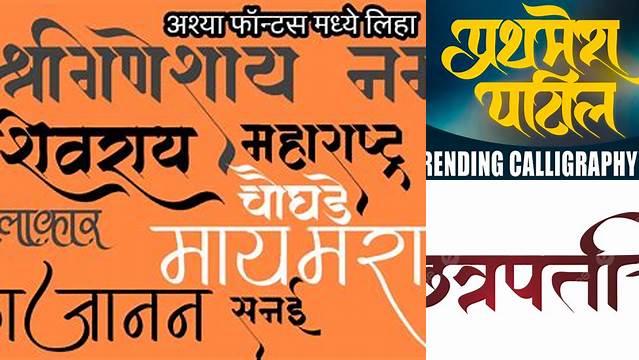
Marathi Fonts Net Shivaji: A Comprehensive Guide
Marathi Fonts Net Shivaji has become a significant keyword for those delving into the realm of Marathi calligraphy and typography. Guys, whether you are a seasoned designer, a student exploring different scripts, or someone simply fascinated by the beauty of Marathi letters, understanding the nuances of Shivaji fonts is essential. In this article, we will embark on a comprehensive journey to explore the rich history, unique characteristics, and practical applications of Marathi Fonts Net Shivaji. So, buckle up and get ready to immerse yourself in the captivating world of Marathi calligraphy!
The Historical Significance of Shivaji Fonts
To truly appreciate the Marathi Fonts Net Shivaji, it's crucial to understand its historical context. The term "Shivaji" in the context of fonts often refers to a specific style of Marathi calligraphy that gained prominence during and after the reign of Chhatrapati Shivaji Maharaj, the legendary Maratha warrior king. Shivaji Maharaj's era was a period of cultural resurgence and the development of a distinct Maratha identity. This cultural awakening extended to the realm of writing and calligraphy, leading to the evolution of unique styles that reflected the spirit and ethos of the time. These fonts are not merely a style of writing; they are a symbol of cultural heritage and a testament to the rich history of the Maratha empire. The influence of this era is still visible in the Marathi Fonts Net Shivaji we see today. The fonts often incorporate bold strokes, intricate curves, and a sense of strength and dynamism, mirroring the characteristics associated with Shivaji Maharaj and his reign. The design elements evoke a sense of tradition and grandeur, making them a popular choice for applications where a touch of historical significance is desired. Furthermore, the evolution of Shivaji fonts is intertwined with the broader history of Marathi script itself. The Marathi script, derived from the Brahmi script, has undergone various transformations over centuries, influenced by different dynasties and regional styles. The Shivaji style represents a specific chapter in this evolution, characterized by its distinct aesthetic and cultural associations. Therefore, understanding the historical significance of Shivaji fonts allows us to appreciate their role in preserving and promoting Marathi culture and heritage. The fonts serve as a visual reminder of the past, connecting us to the legacy of Shivaji Maharaj and the Maratha empire. In today's digital age, the use of Shivaji fonts in various media helps to keep this historical connection alive, ensuring that the cultural significance of the script continues to be recognized and celebrated. By exploring the history, we can better understand why Marathi Fonts Net Shivaji holds such a special place in the hearts of many, serving not just as a means of communication, but as a powerful symbol of identity and cultural pride.
Key Characteristics of Marathi Fonts Net Shivaji
When we talk about Marathi Fonts Net Shivaji, certain distinct characteristics come to mind. These fonts are not just another typeface; they possess unique features that set them apart and make them instantly recognizable. One of the most prominent characteristics is the bold and strong strokes. The letters often have a robust and assertive appearance, reflecting the historical context of the Maratha empire and its warrior spirit. This boldness makes them ideal for headlines, titles, and other applications where impact and visibility are crucial. Another key feature is the intricate curves and flourishes that adorn the letters. Unlike more minimalist fonts, Shivaji fonts often incorporate decorative elements that add a touch of elegance and sophistication. These curves and flourishes are not merely ornamental; they also contribute to the overall legibility and aesthetic appeal of the script. The combination of bold strokes and intricate curves creates a visual balance that is both striking and pleasing to the eye. Moreover, Marathi Fonts Net Shivaji often exhibit a unique rhythm and flow. The letters are designed to connect seamlessly, creating a sense of continuity and harmony. This flow is particularly important in calligraphy, where the overall visual impression is just as important as the individual letterforms. The fonts are designed to mimic the natural flow of handwriting, preserving the artistic quality of the script. Furthermore, the distinct letterforms themselves contribute to the unique character of Shivaji fonts. Certain letters may have elongated strokes, while others may feature distinctive loops or curls. These variations add personality and flair to the font, making it stand out from more generic typefaces. The letterforms are carefully crafted to maintain legibility while also showcasing the artistic potential of the script. In addition to these stylistic elements, the spacing and kerning of Marathi Fonts Net Shivaji are also crucial considerations. Proper spacing ensures that the letters are neither too crowded nor too far apart, maintaining readability and visual appeal. Kerning, the adjustment of space between specific letter pairs, is particularly important in achieving a balanced and harmonious look. The careful attention to these details contributes to the overall polished and professional appearance of Shivaji fonts. In conclusion, the key characteristics of Marathi Fonts Net Shivaji – the bold strokes, intricate curves, unique rhythm, and distinct letterforms – combine to create a typeface that is both visually striking and culturally significant. These features make them a popular choice for a wide range of applications, from traditional print media to modern digital design.
Practical Applications of Marathi Fonts Net Shivaji
The practical applications of Marathi Fonts Net Shivaji are diverse and widespread, spanning across various media and design contexts. These fonts, with their unique blend of tradition and modernity, are not just aesthetically pleasing but also functionally versatile. One of the most common applications is in print media, where Shivaji fonts are often used for headlines, titles, and logos. Their bold and striking appearance makes them ideal for grabbing attention and conveying a sense of importance. Whether it's a newspaper, magazine, book cover, or poster, Shivaji fonts can add a touch of elegance and cultural authenticity. The fonts are particularly well-suited for projects that require a strong visual impact and a connection to Marathi heritage. In the realm of digital design, Marathi Fonts Net Shivaji are equally popular. Websites, social media graphics, and digital advertisements often incorporate these fonts to create a distinct visual identity. The digital format allows for even greater flexibility in using Shivaji fonts, with options for customization and animation. The fonts can be adapted to suit various screen sizes and resolutions, ensuring readability and visual appeal across different devices. Furthermore, the use of Shivaji fonts in digital media helps to preserve and promote Marathi culture in the online world. Beyond media and design, Shivaji fonts also find applications in signage and branding. Businesses and organizations that want to project a traditional or culturally rooted image often opt for Shivaji fonts in their signage, letterheads, and other branding materials. The fonts can convey a sense of heritage and authenticity, which can be particularly valuable for businesses targeting a Marathi-speaking audience. The use of Shivaji fonts in branding helps to create a consistent and recognizable visual identity. In the education sector, Marathi Fonts Net Shivaji play a crucial role in teaching and learning the Marathi language. Textbooks, educational materials, and online resources often use Shivaji fonts to ensure that students are familiar with the traditional script. The fonts help to maintain a connection to the cultural heritage of the language and promote literacy in Marathi. Moreover, the use of Shivaji fonts in education can inspire a greater appreciation for the beauty and complexity of the script. In the world of art and calligraphy, Marathi Fonts Net Shivaji are a favorite among artists and designers. The fonts serve as a foundation for creating stunning calligraphic works and artistic compositions. The intricate curves and unique letterforms lend themselves well to creative experimentation and personal expression. Artists often use Shivaji fonts as a starting point, adding their own flair and style to create truly original pieces. In summary, the practical applications of Marathi Fonts Net Shivaji are vast and varied, ranging from print media and digital design to signage, branding, education, and art. Their versatility and cultural significance make them a valuable resource for anyone working with the Marathi language and script. The fonts not only enhance the visual appeal of various projects but also contribute to the preservation and promotion of Marathi culture and heritage.
Tips for Effective Use of Marathi Fonts Net Shivaji
Using Marathi Fonts Net Shivaji effectively requires a bit of finesse and understanding of design principles. While these fonts are beautiful and culturally significant, they need to be used judiciously to achieve the desired impact. One of the most important tips is to use them sparingly. Shivaji fonts, with their bold strokes and intricate details, are best suited for headlines, titles, and logos, as we've discussed. Overusing them in body text can lead to a cluttered and overwhelming visual experience, making the text difficult to read. Instead, consider pairing Shivaji fonts with a simpler, more legible typeface for the main body of your text. This contrast can create a visually appealing and balanced design. Another key tip is to consider the context and tone of your project. Marathi Fonts Net Shivaji often evoke a sense of tradition, history, and strength. Therefore, they are particularly well-suited for projects that align with these themes. For example, they might be an excellent choice for a book cover about Marathi history or a logo for a cultural organization. However, they may not be the best fit for a modern, minimalist design or a project that requires a more lighthearted tone. It's also essential to pay attention to kerning and spacing when working with Shivaji fonts. The intricate letterforms and varying widths can sometimes create uneven spacing, which can detract from the overall visual appeal. Take the time to adjust the kerning between letter pairs to ensure that the text is balanced and legible. Proper spacing can make a significant difference in the final look of your design. Furthermore, consider the color palette and visual elements that you pair with Marathi Fonts Net Shivaji. These fonts often work well with rich, earthy tones and traditional motifs. However, they can also be incorporated into modern designs with a bit of creativity. Experiment with different color combinations and visual elements to find the best fit for your project. In addition to these design considerations, it's important to respect the cultural significance of Shivaji fonts. These fonts are not just a typeface; they are a reflection of Marathi heritage and history. Use them in a way that honors this heritage and avoids any cultural appropriation or misrepresentation. If you're unsure about the appropriate use of Shivaji fonts, it's always a good idea to consult with a designer or someone familiar with Marathi culture. Finally, don't be afraid to experiment and explore the possibilities of Marathi Fonts Net Shivaji. These fonts offer a unique blend of tradition and modernity, and they can be used in a variety of creative ways. Play with different font sizes, styles, and combinations to find what works best for your project. With a little practice and attention to detail, you can master the art of using Shivaji fonts to create stunning and culturally rich designs.
In conclusion, Marathi Fonts Net Shivaji represents a fascinating intersection of history, culture, and design. Guys, these fonts are more than just a means of communication; they are a powerful symbol of Marathi identity and heritage. By understanding their historical significance, key characteristics, practical applications, and effective usage, we can appreciate and utilize them to their full potential. Whether you're a designer, student, or simply someone interested in Marathi culture, exploring Shivaji fonts is a rewarding journey that connects us to the rich legacy of the Maratha empire and the beauty of Marathi calligraphy. So, dive in, experiment, and let your creativity flow with the timeless elegance of Marathi Fonts Net Shivaji!